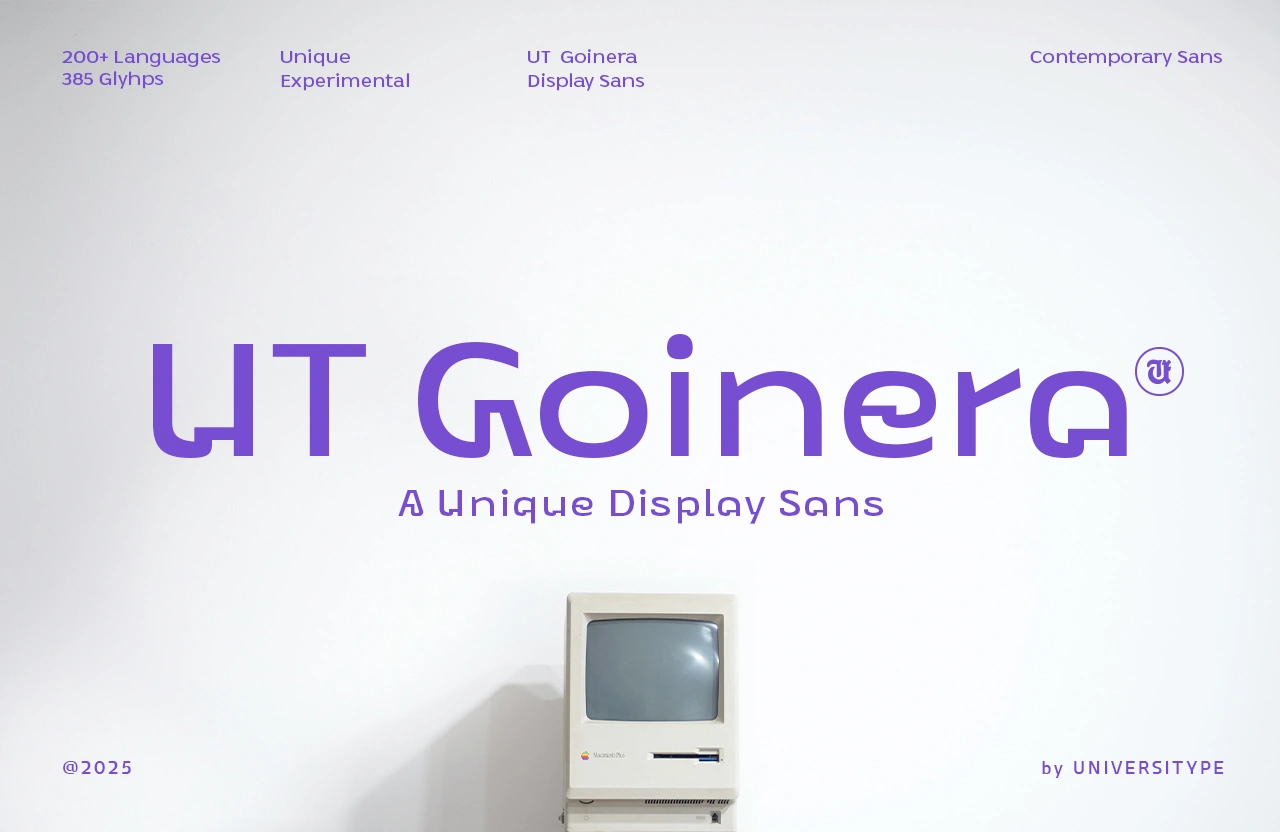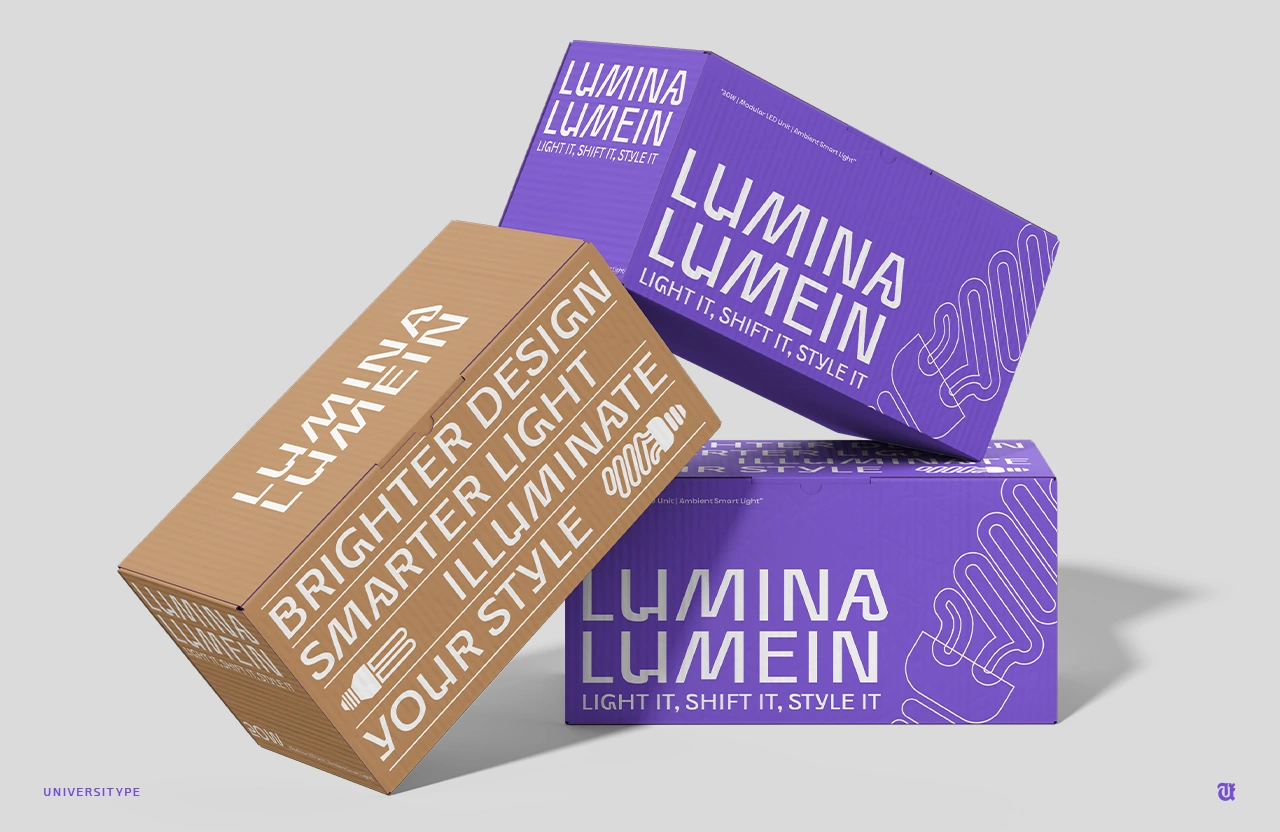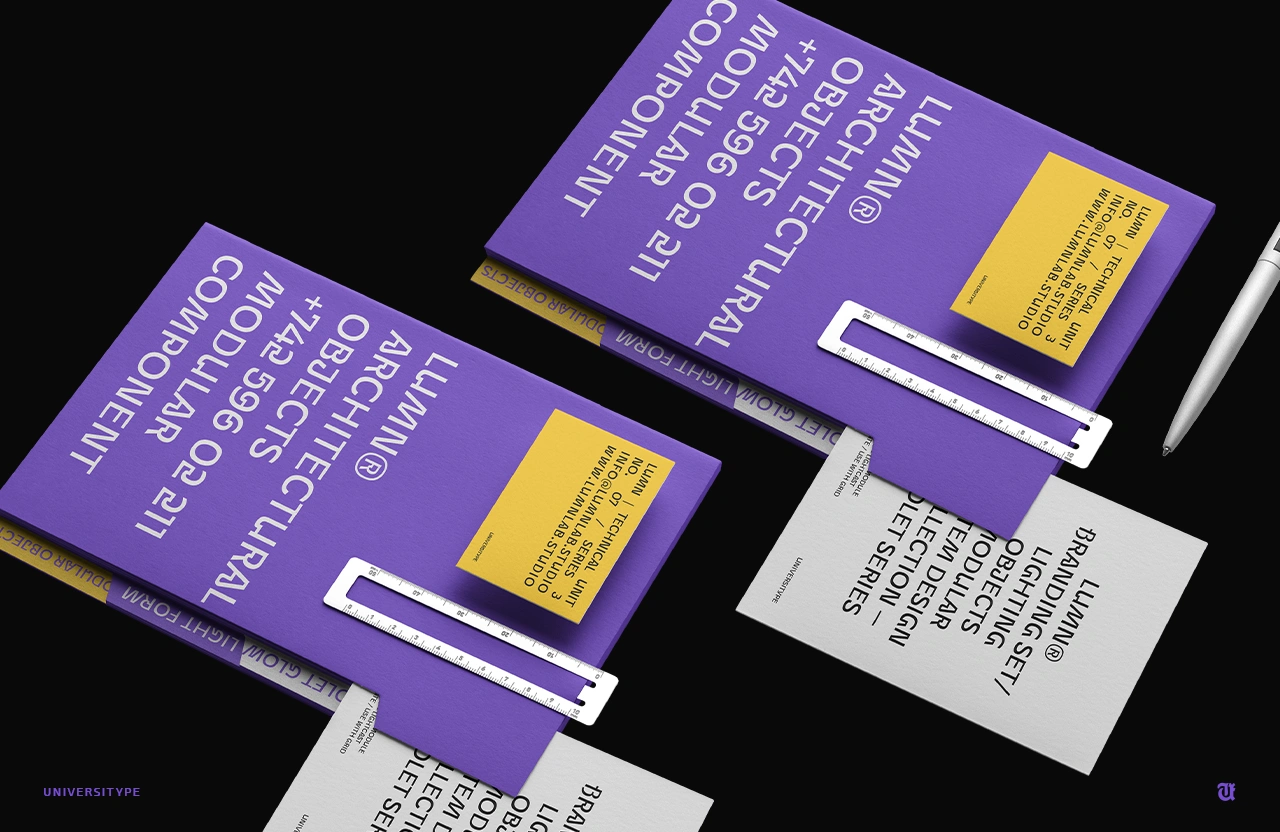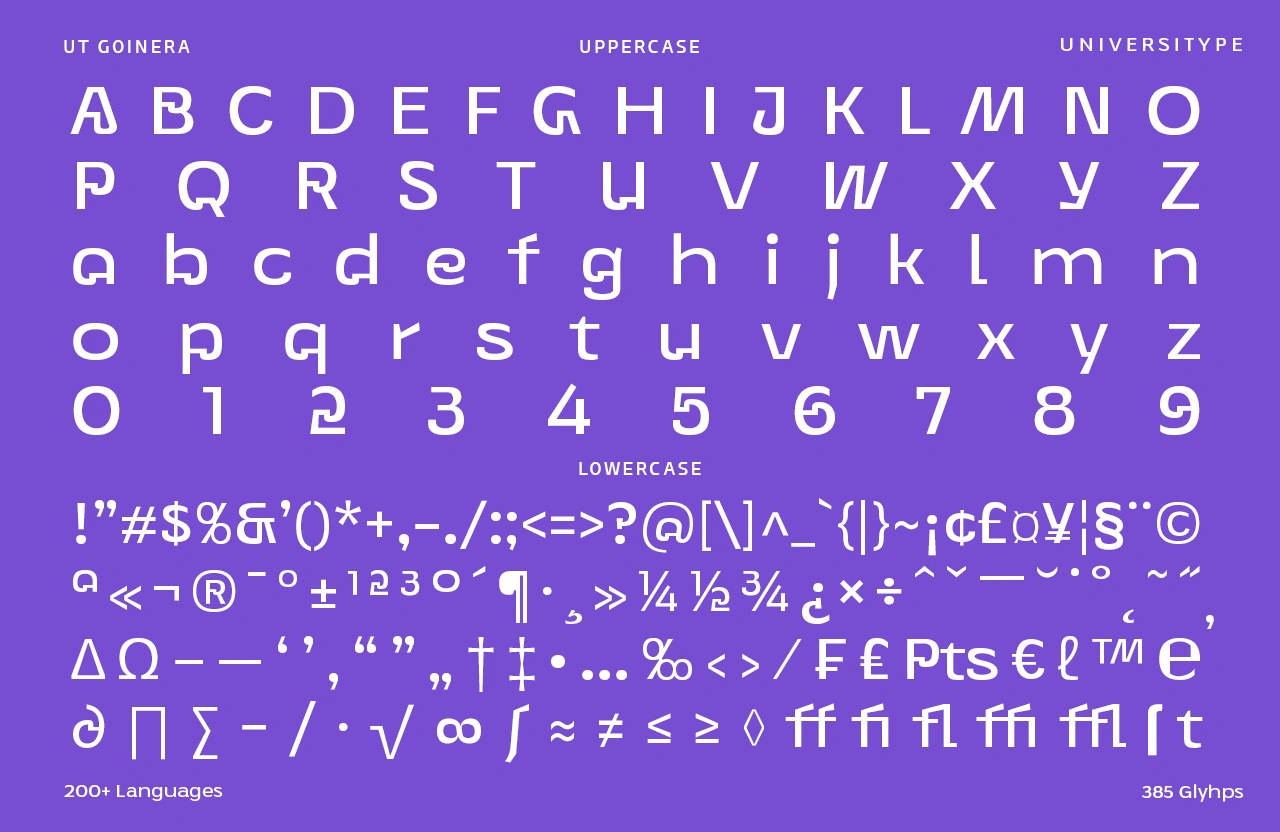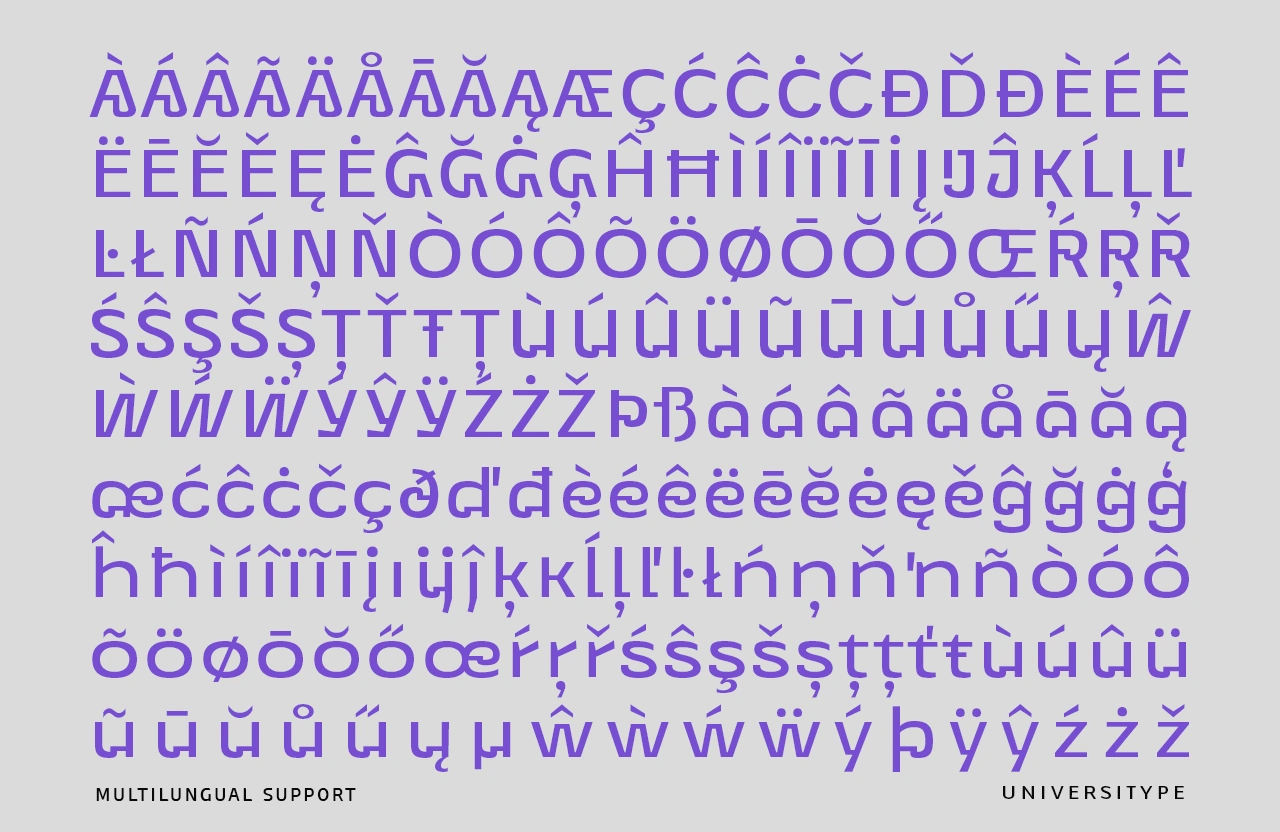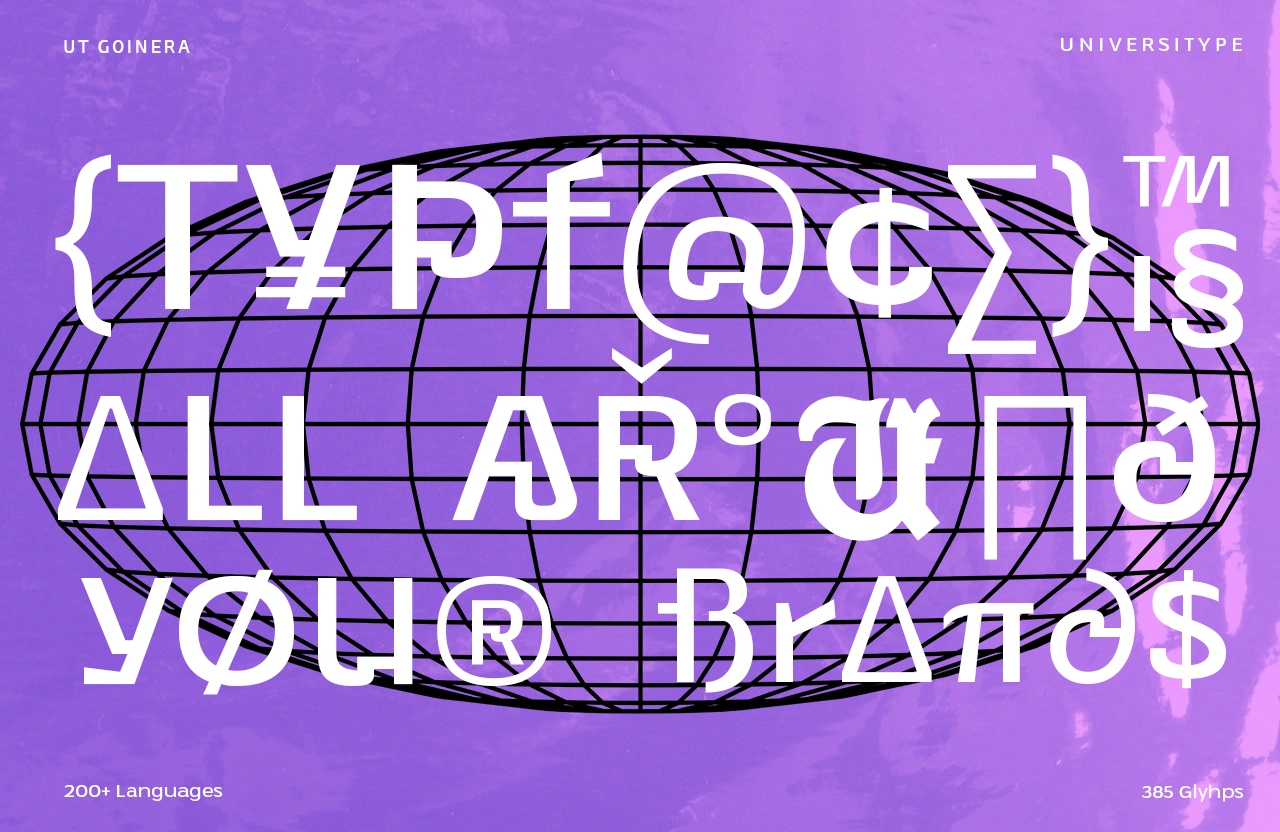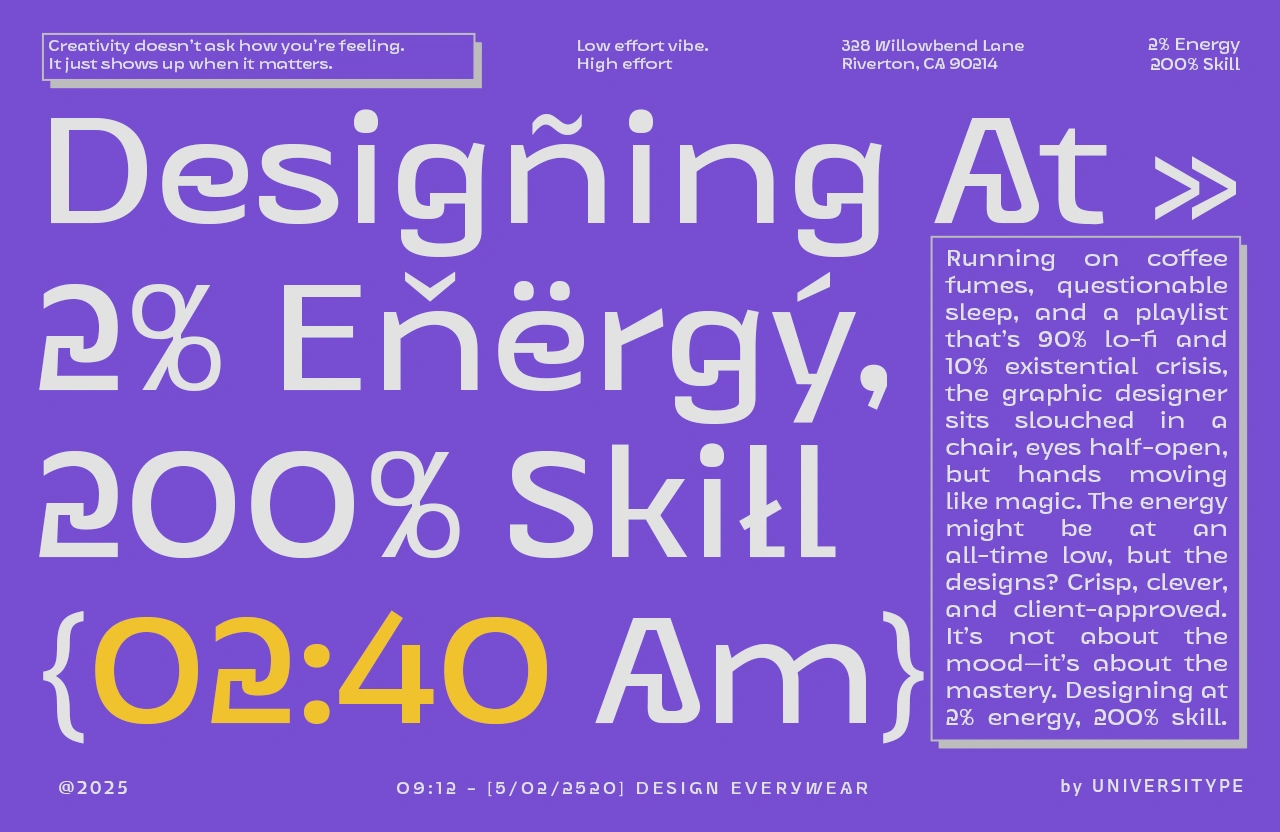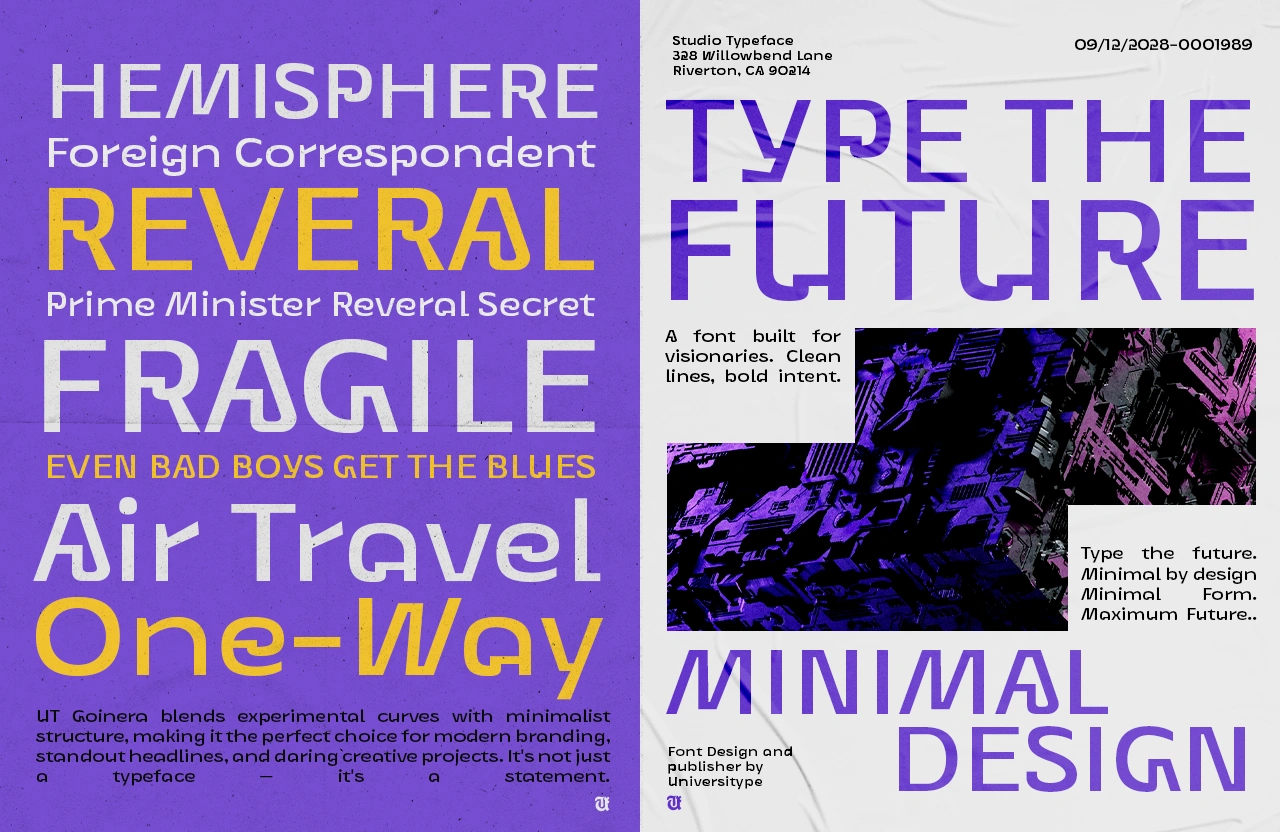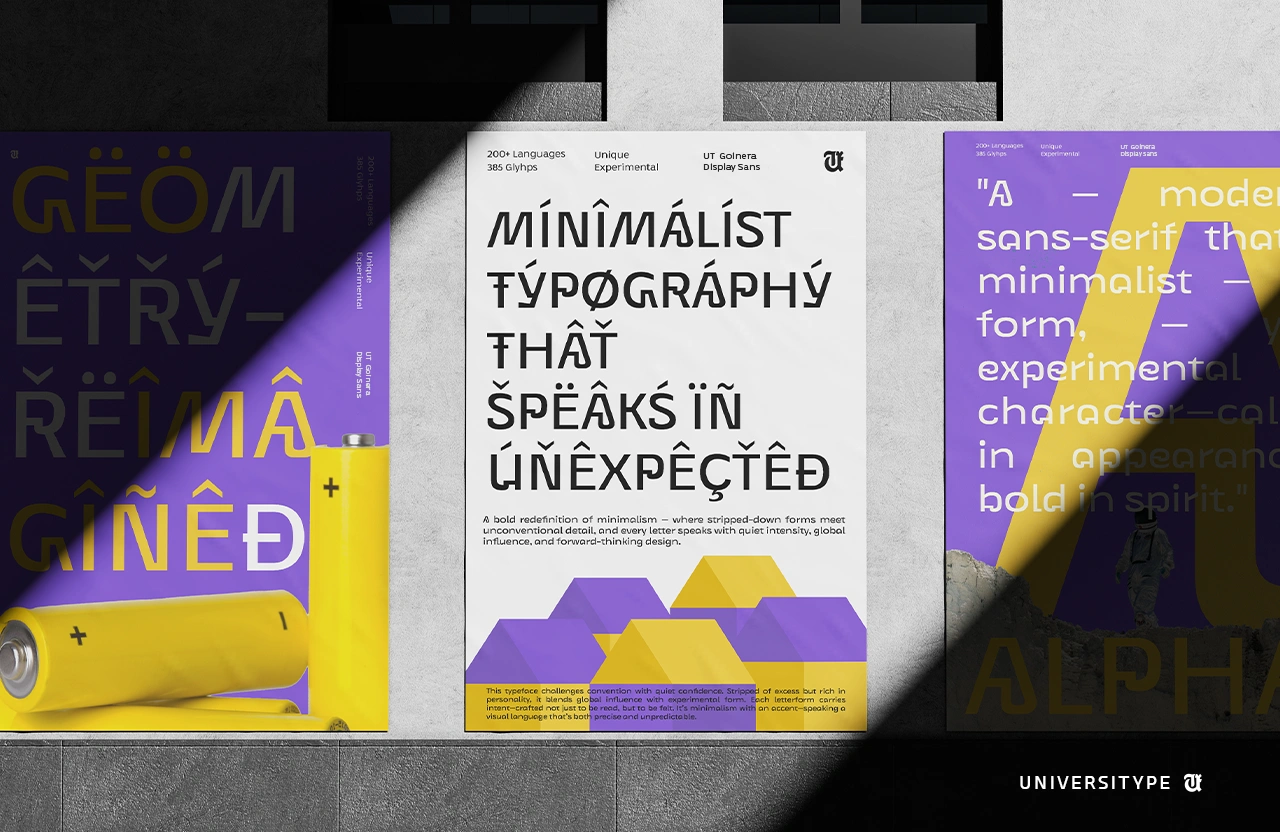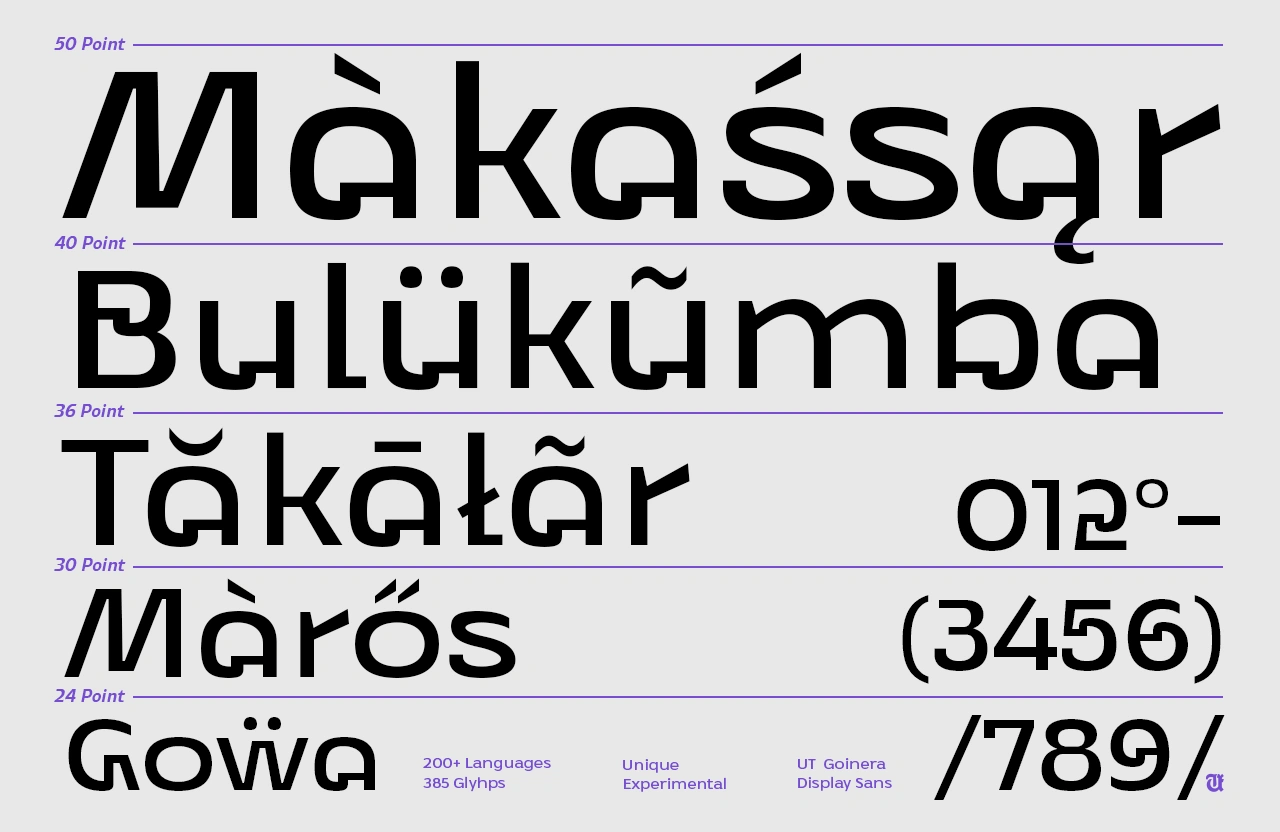
UT Goinera
UT Goinera is a modern geometric typeface that finds its roots in the everyday, a coffee cup lid, to be exact. But don’t let the simplicity of the inspiration fool you. This font is all about clean structure with subtle quirks that bring warmth and personality to your work.
UT Goinera – A Minimal Geometric Typeface with Clever, Curved Details
UT Goinera is a modern geometric typeface that finds its roots in the everyday, a coffee cup lid, to be exact. But don’t let the simplicity of the inspiration fool you. This font is all about clean structure with subtle quirks that bring warmth and personality to your work.
Designed with smooth curves, strong verticals, and distinctive joints, UT Goinera blends architectural precision with a soft, grounded tone. The result? A typeface that feels thoughtful, approachable, and effortlessly modern.
Whether you’re crafting a brand identity, building sleek UI layouts, or designing bold packaging, UT Goinera gives you a clean base with enough detail to stand out—without trying too hard.
Target Audience
Designers, branding experts, UI/UX folks, and creatives who appreciate thoughtful structure and subtle details. UT Goinera works beautifully for brands that want to feel approachable, modern, and distinct—whether it’s a minimalist skincare label, a calm tech product, or a thoughtful content platform.
Key Features
– Single-storey “a” and soft, round terminals
– Signature joint system inspired by real-world forms
– Geometric rhythm that feels balanced and readable
– Looks great in both large display and small text
– Friendly without losing its sense of order
Inspiration Behind the Design
The spark for UT Goinera came from something unexpected: a coffee cup lid. The way the form curves around, locks together, and creates a tight, satisfying closure—it felt like a blueprint for letter construction. The idea of translating those tactile forms into a font structure led to the signature “joint” system you’ll see across the letterforms. The single-storey “a” is a direct result of this exploration—where curves, stems, and bars meet in a way that feels both industrial and soft. It’s a typeface born from everyday design, elevated through detail.
Usage Suggestions
– Branding for lifestyle, fashion, or tech
– Clean and calm editorial layouts
– Digital interfaces and mobile apps
– Packaging design that leans modern
– Posters, quote graphics, and social content
– Character set: Uppercase, lowercase, numerals, punctuation, multilingual support
– Smooth kerning and refined spacing
– Optimized for both screen and print